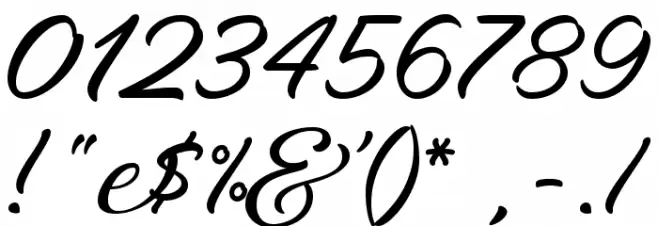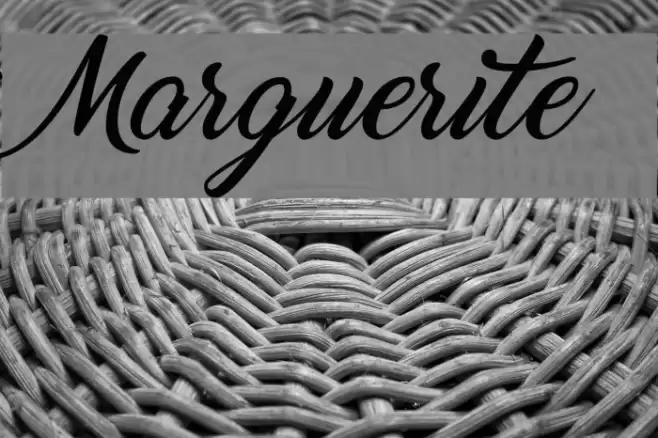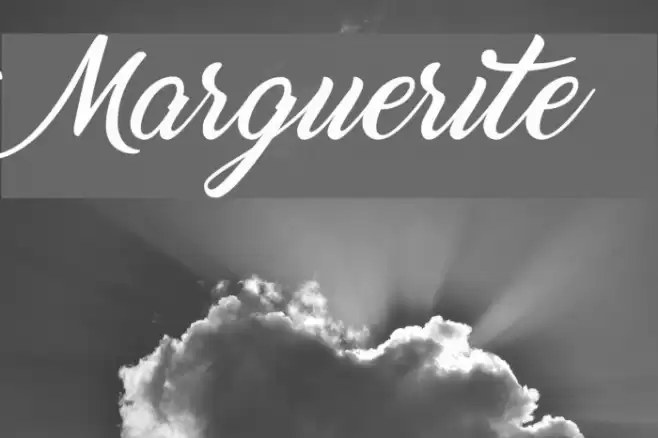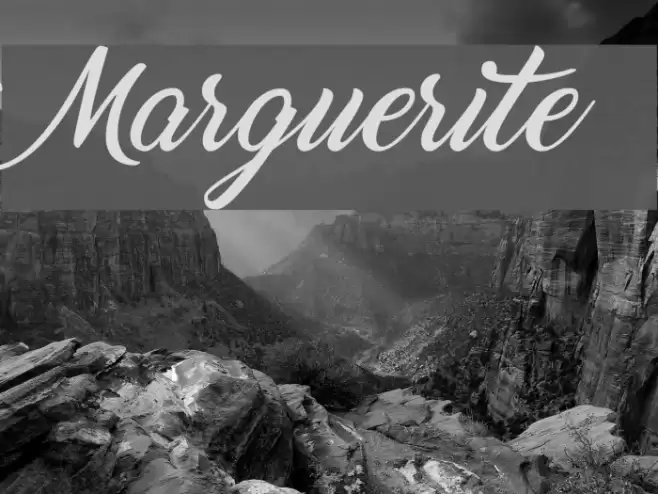
Marguerite Font
Marguerite Description
This font is a beautifully crafted script typeface that exudes elegance and sophistication. The letters are intricately designed with smooth, flowing strokes that give a sense of fluidity and grace. The uppercase letters are bold and prominent, while the lowercase letters maintain a delicate balance with their slightly narrower forms. The numerals are consistent with the overall style, featuring the same elegant curves and flourishes. Special characters are thoughtfully integrated, maintaining the font's cohesive aesthetic. This typeface is perfect for projects that require a touch of class and refinement.
An elegant script font with flowing, graceful strokes from Calligraphic fonts.
• Proposed Projects: Ideal for wedding invitations, luxury branding, elegant signage, and high-end product packaging.
• Contrast: Medium
• Overall Style: Elegant
• Use Case: Logos, Invitations, Branding